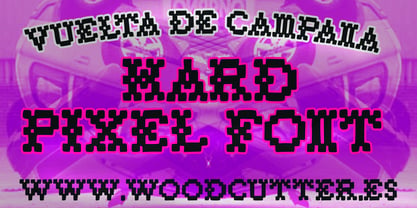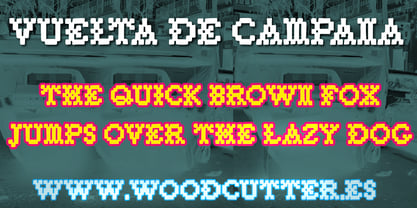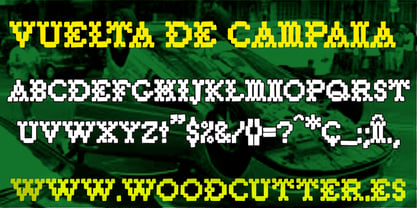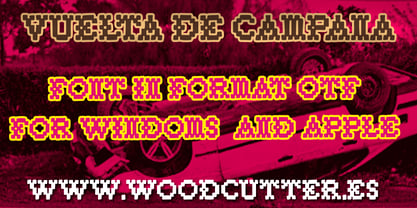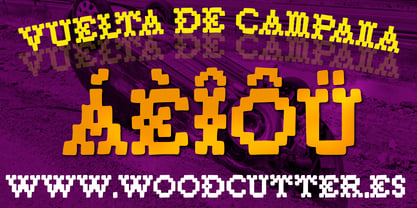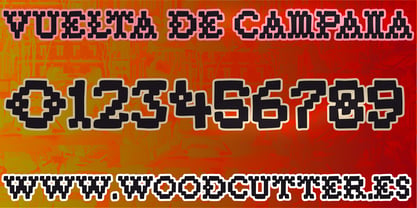
Vuelta De Campana
The Vuelta De Campana Font Family was designed by Jordi Manero and published by Woodcutter. Vuelta De Campana contains 1 styles. More about this family
Vuelta De Campana is an uppercase typeface with accents that blends ruggedness with an embroidered, craft-inspired style. Its letters have a rough, pixelated, and bold finish, evoking both the aesthetic of traditional embroidery and the raw strength of manual work. Each character radiates visual power, with square, rigid shapes that, despite their “stitched” appearance, maintain a tough, strong, and commanding presence.
This typeface is perfect for graphic projects that aim for visual impact and personality, making it ideal for posters, alternative logos, album covers, urban fashion designs, or any context where the goal is to convey a direct, robust, and unapologetic message. The texture of its forms recalls digital loom patterns or industrial embroidery taken to the extreme, turning it into a typeface that fuses traditional and modern aesthetics in an unexpected way.
Vuelta De Campana is not meant to be elegant or delicate: it is brutal, forceful, and full of character, with an appeal that lies in its deliberate imperfection. It is a font that imposes itself, transmitting strength, resilience, and a unique style, crafted for designers who want to take risks and step outside the conventional.